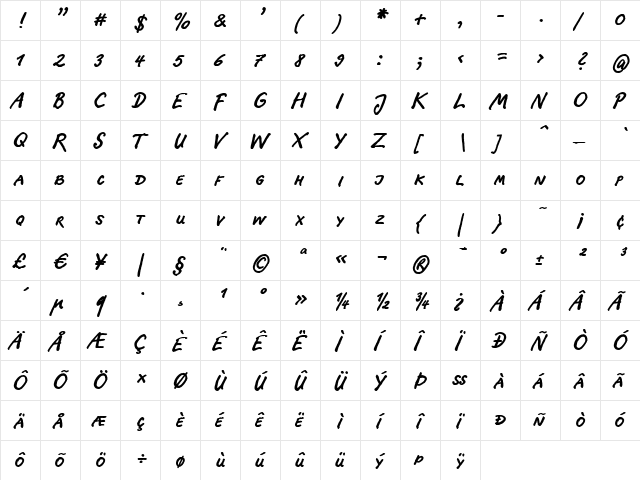
RopsenScript-BoldSC Regular
Design Context for RopsenScript-BoldSC Typeface
RopsenScript-BoldSC brings a calligraphic fluidity to the page — its connecting strokes and expressive curves give it an unmistakably human quality. The heavy weight commands attention and anchors typographic hierarchies.
Font Pairing: Combine RopsenScript-BoldSC with a simple geometric sans for maximum contrast — the tension between flowing curves and clean structure is a classic typographic pairing.
Pro Tip: Pair RopsenScript-BoldSC with a clean sans-serif for supporting text. The contrast between fluid script and geometric structure creates an elegant typographic hierarchy.